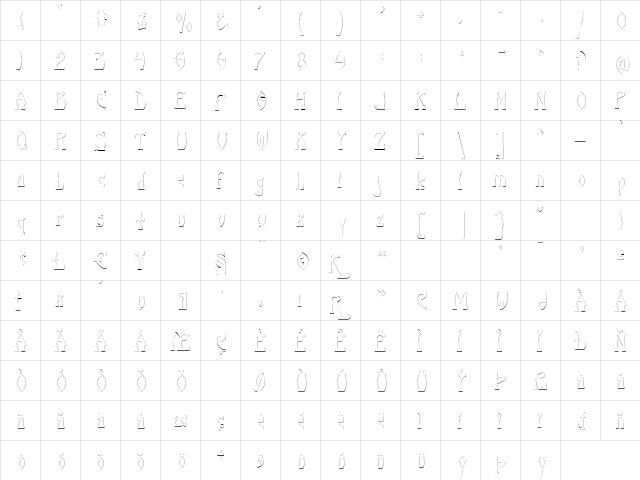
P22 Salon Shadow Regular
| Foundry | P22 type foundry / International House of Fonts |
| Designer | Christina Torre |
Design Context for P22 Salon Shadow Typeface
P22 Salon Shadow is built around its visual character rather than neutral utility — its distinctive forms are designed to make an impression at display sizes.
Font Pairing: Pair with a clean neutral sans-serif for body copy to let P22 Salon Shadow's character lead without overwhelming the composition.
Pro Tip: Use P22 Salon Shadow exclusively at display sizes — it was designed to be seen, not read at length. Let a neutral companion handle body copy.